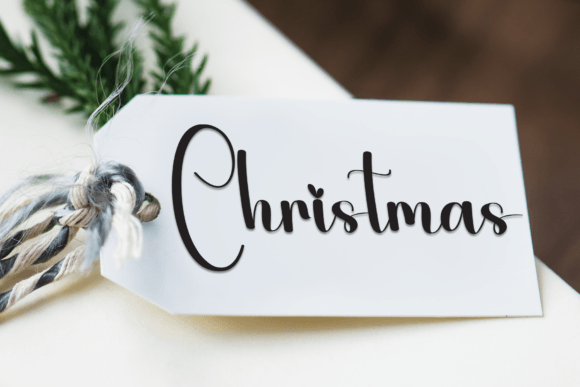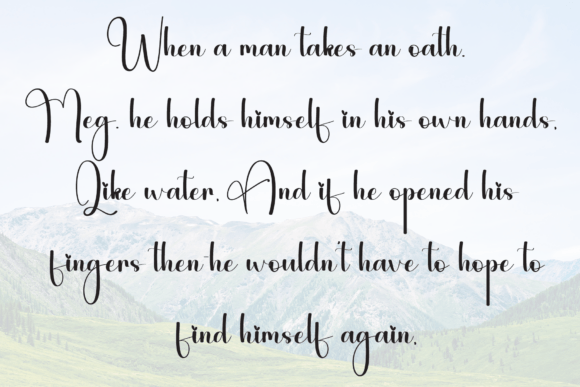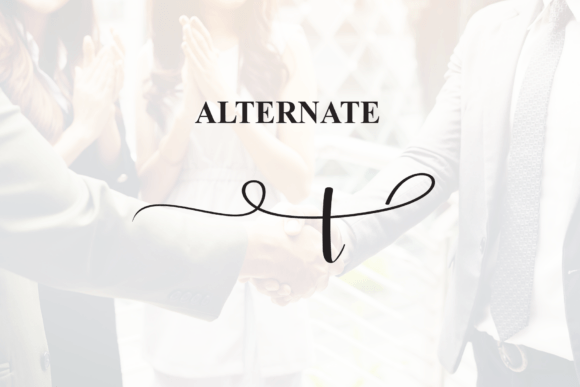
Discover the Charm of Appreciation Font
Have you ever been in the middle of designing a project, and suddenly, you just can’t seem to find the right font? I recall a particularly frustrating experience while working on a wedding invitation design. My client wanted something that exuded warmth, friendliness, and a touch of nostalgia. That’s when I stumbled upon the Appreciation Font – a handcrafted display font that instantly captured the essence of what I was looking for.
A Personal Review of Appreciation Font
I’m excited to share my honest review of this delightful font, and here’s what I love about it:
• ✨ Warm and Friendly Appeal: Appreciation Font has a unique ability to evoke a sense of warmth and friendliness, making it perfect for designs that require a personal touch.
• ✅ Cute and Playful Strokes: The font’s playful strokes add a dash of fun to any design, making it ideal for creative projects that require a bit of whimsy.
• 💕 Perfect for Wedding Invitations and Cards: The font’s nostalgic feel makes it a great choice for wedding invitations, heartfelt cards, and other designs that require a touch of elegance.
While Appreciation Font is a gem, it’s not without its quirks. Here are a few things to keep in mind:
• 🤔 Limited Use in Small Sizes: The font’s playful strokes can become a bit blurry when used in small sizes, so it’s best to use it for display purposes or larger designs.
• ⚠️ Not Suitable for Body Text: Due to its decorative nature, Appreciation Font is not ideal for body text or lengthy paragraphs.
The Designer Inspiration Behind Appreciation Font
Appreciation Font was designed with the intention of creating a unique, handcrafted font that exudes warmth and friendliness. The designer aimed to create a font that would evoke a sense of nostalgia and playfulness, making it perfect for designs that require a personal touch.
Font Name Appreciation Font
Author Strongkeng Old
What is Appreciation Font? Appreciation Font is a handcrafted display font designed to evoke a sense of warmth, friendliness, and nostalgia.
Is Appreciation Font suitable for body text? No, Appreciation Font is not ideal for body text or lengthy paragraphs due to its decorative nature.